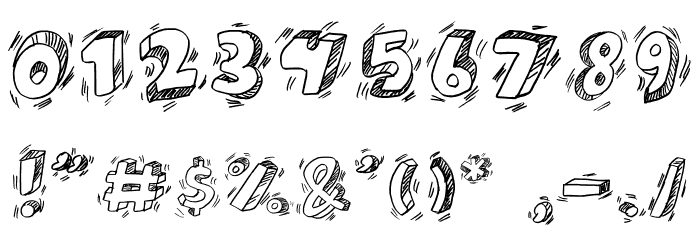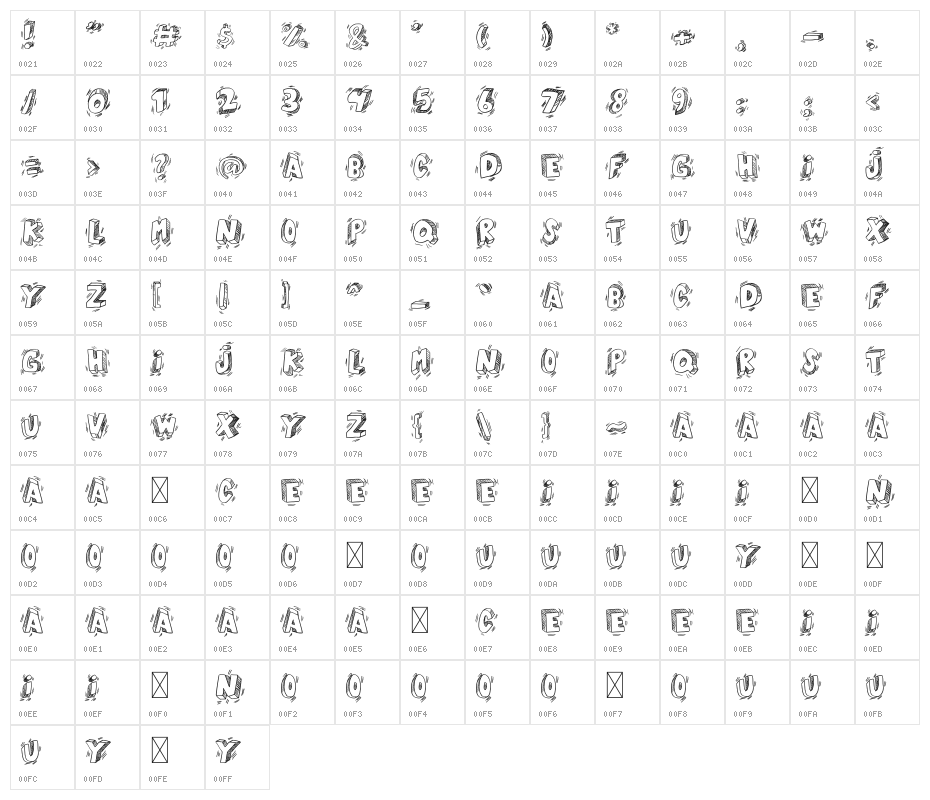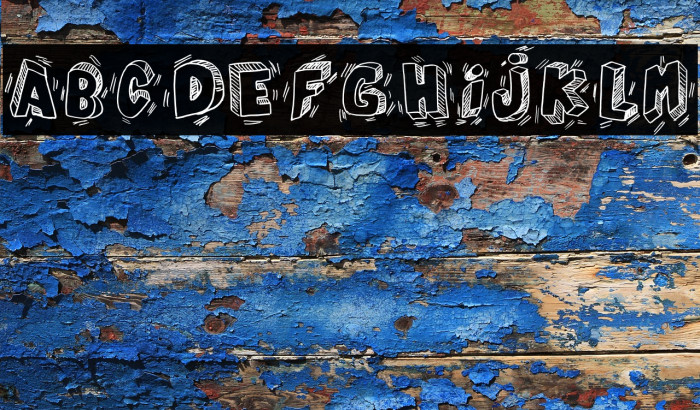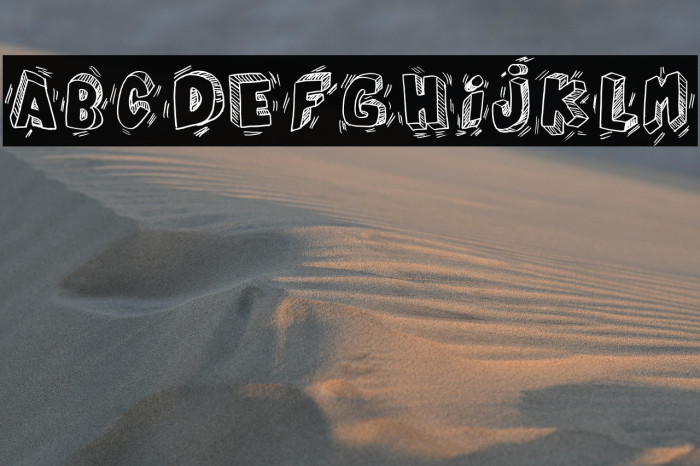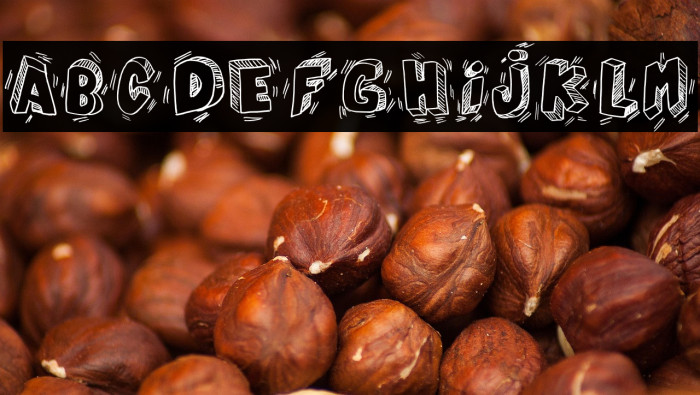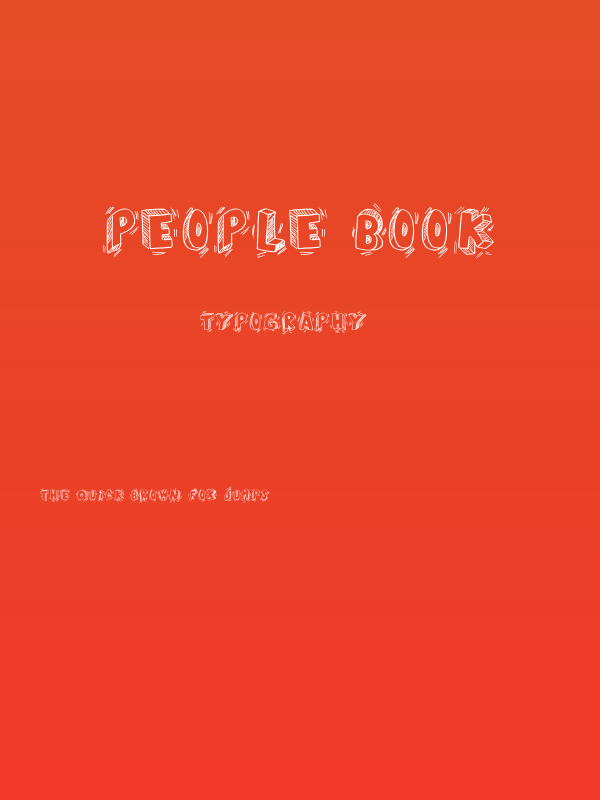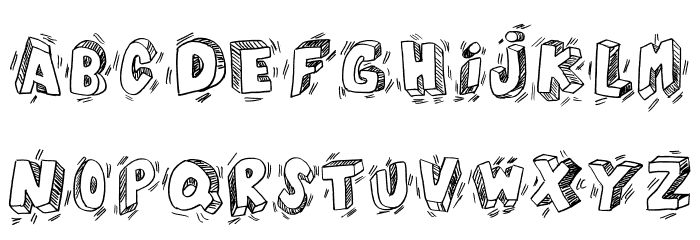
PEOPLE BOOK Font
PEOPLE BOOK Description
This font features a playful, hand-drawn style with a sketch-like appearance. Each character is outlined with irregular, dynamic strokes that give it a lively and energetic feel. The letters are bold and slightly exaggerated, with a three-dimensional effect created by the shading and line work. This adds depth and a sense of movement to the text. The font maintains a consistent style across uppercase, lowercase, numbers, and special characters, making it versatile for various creative projects. Its unique, artistic design makes it stand out, perfect for capturing attention and conveying a fun, informal tone.
| Overall Style | Playful, Artistic, Energetic |
| Proposed Projects | Ideal for comic books, children's books, playful branding, posters, and creative social media graphics. |